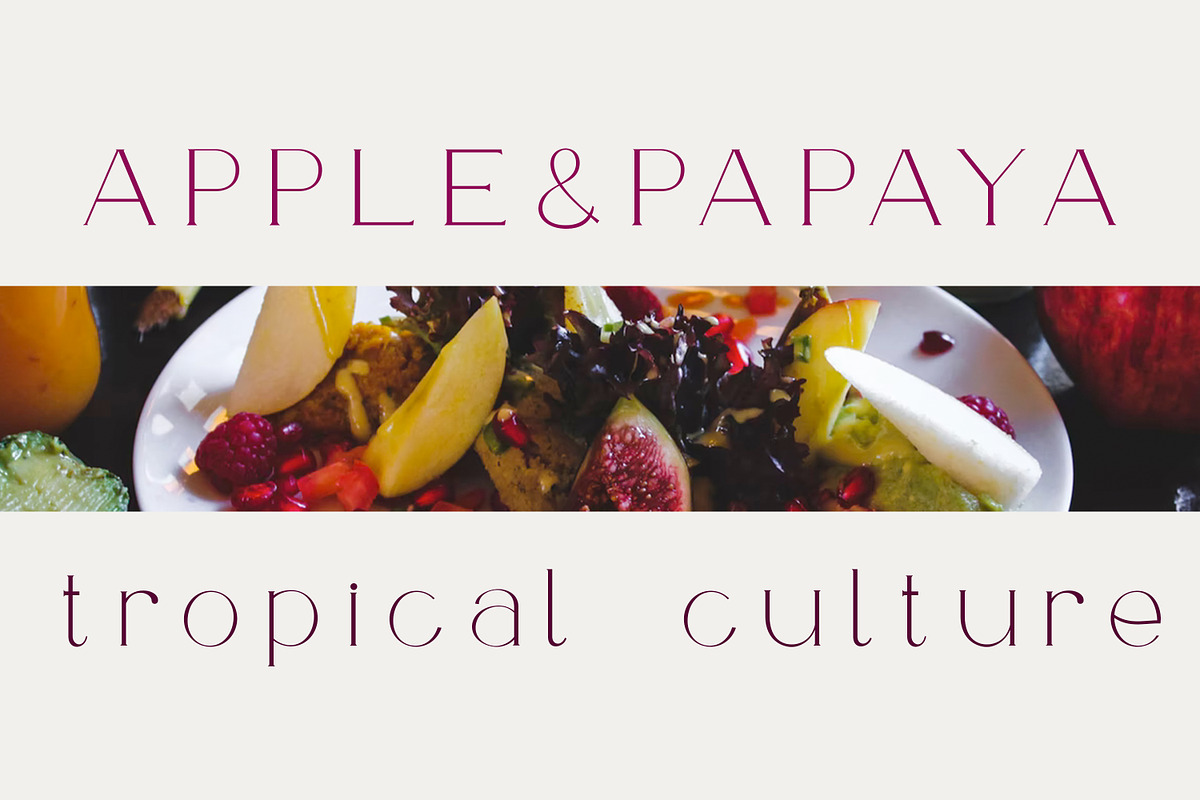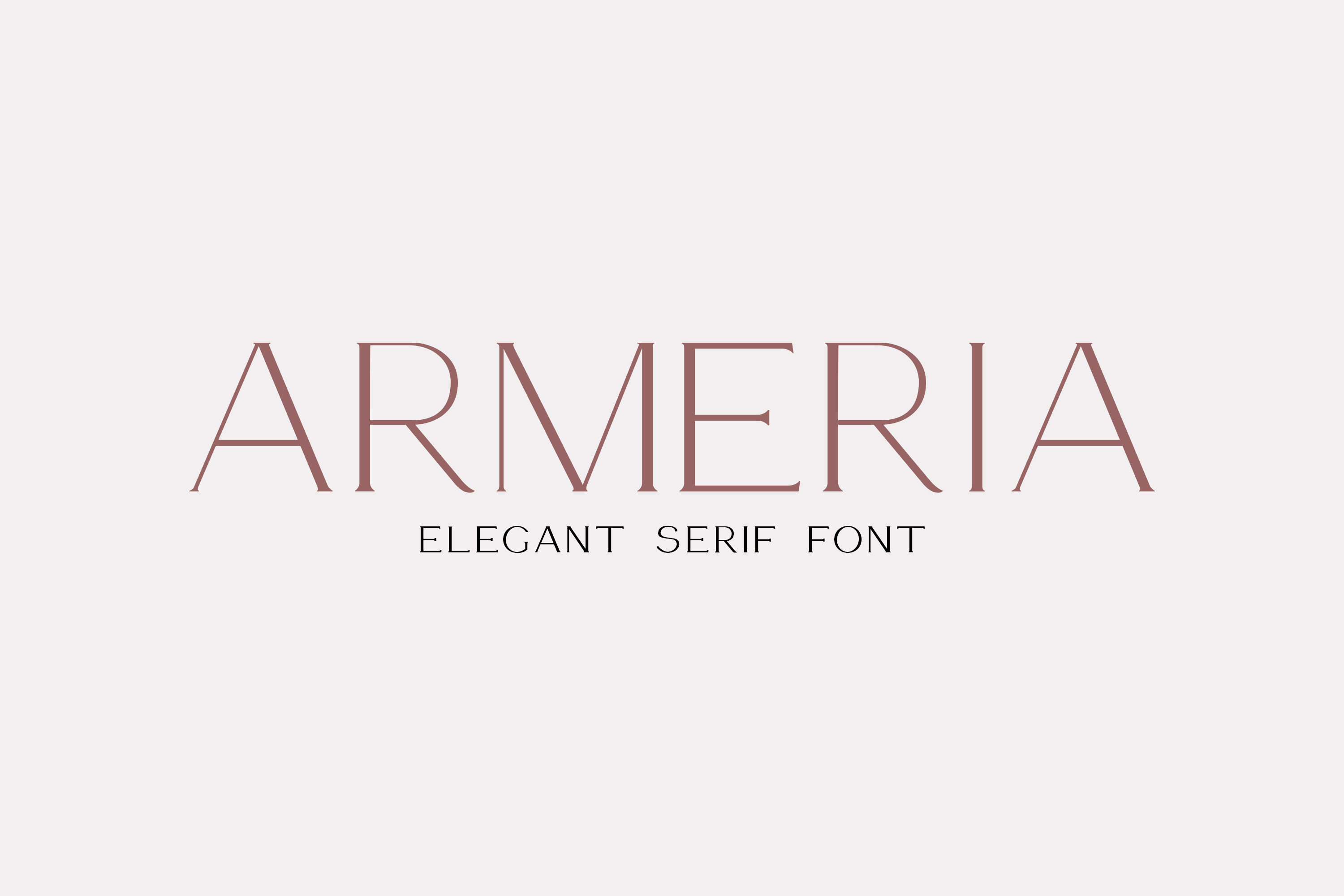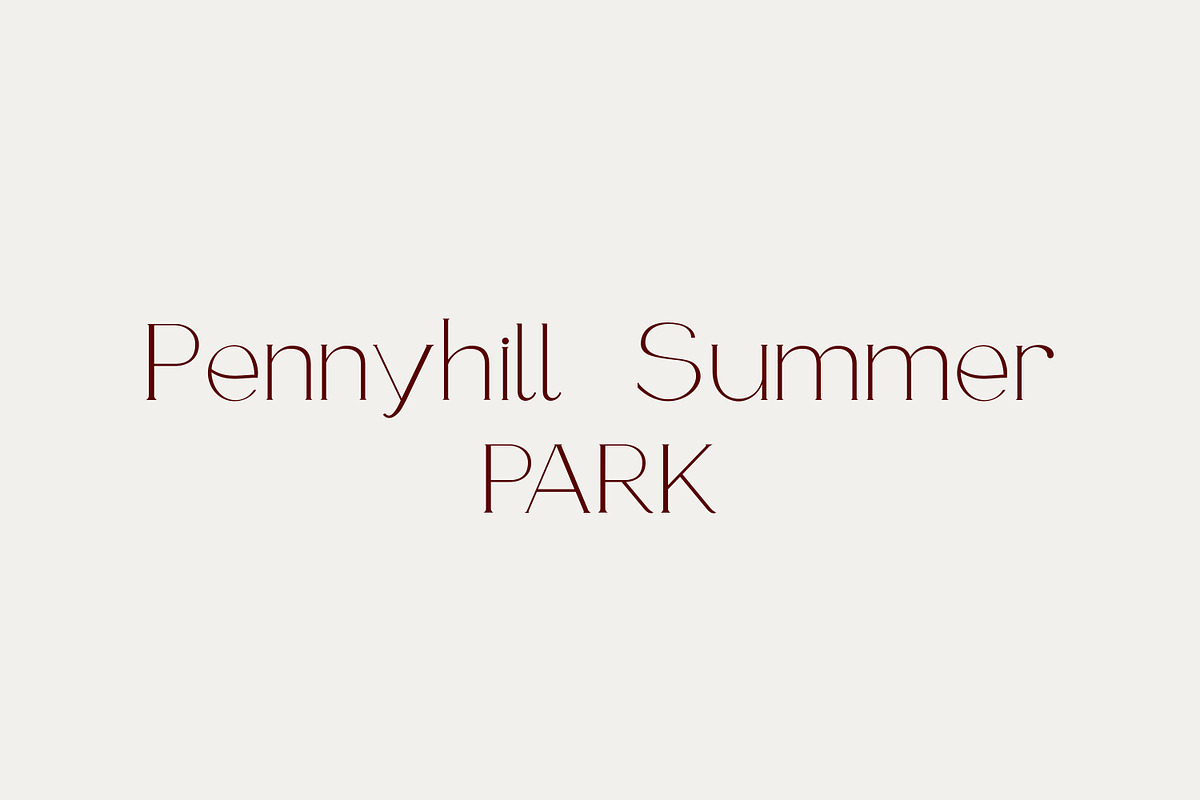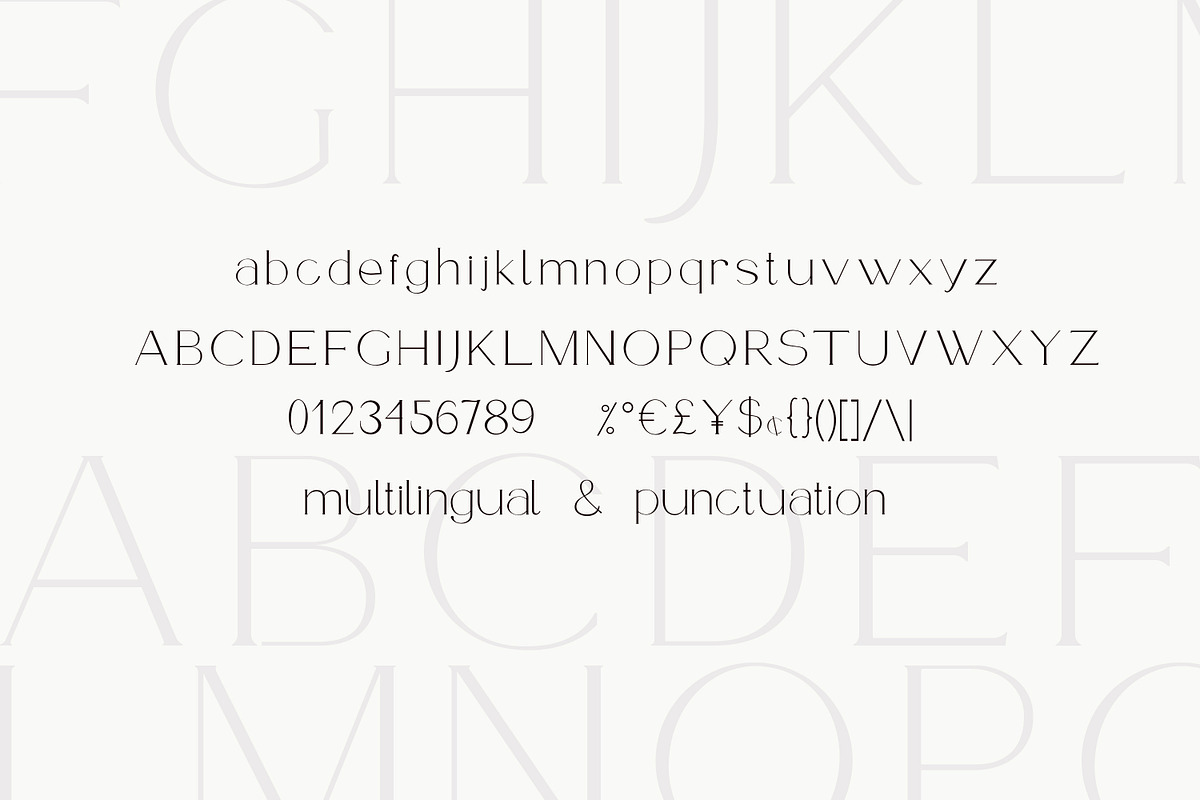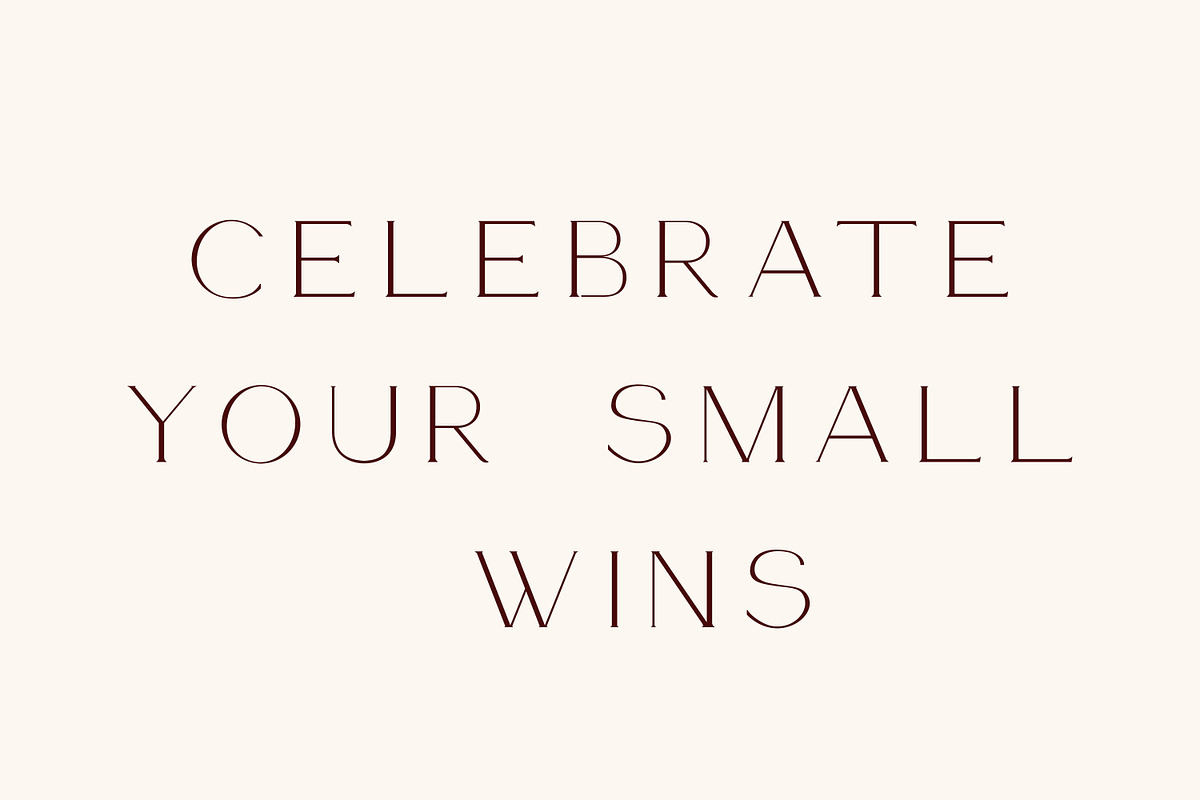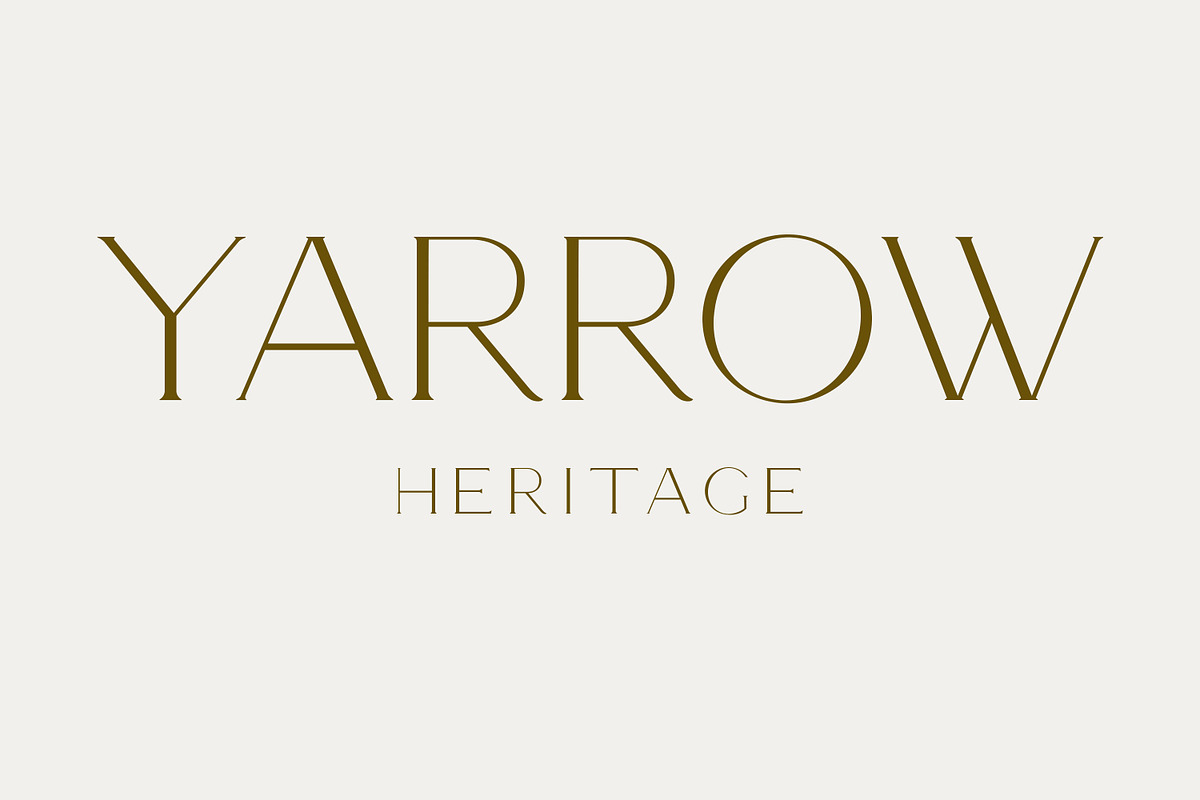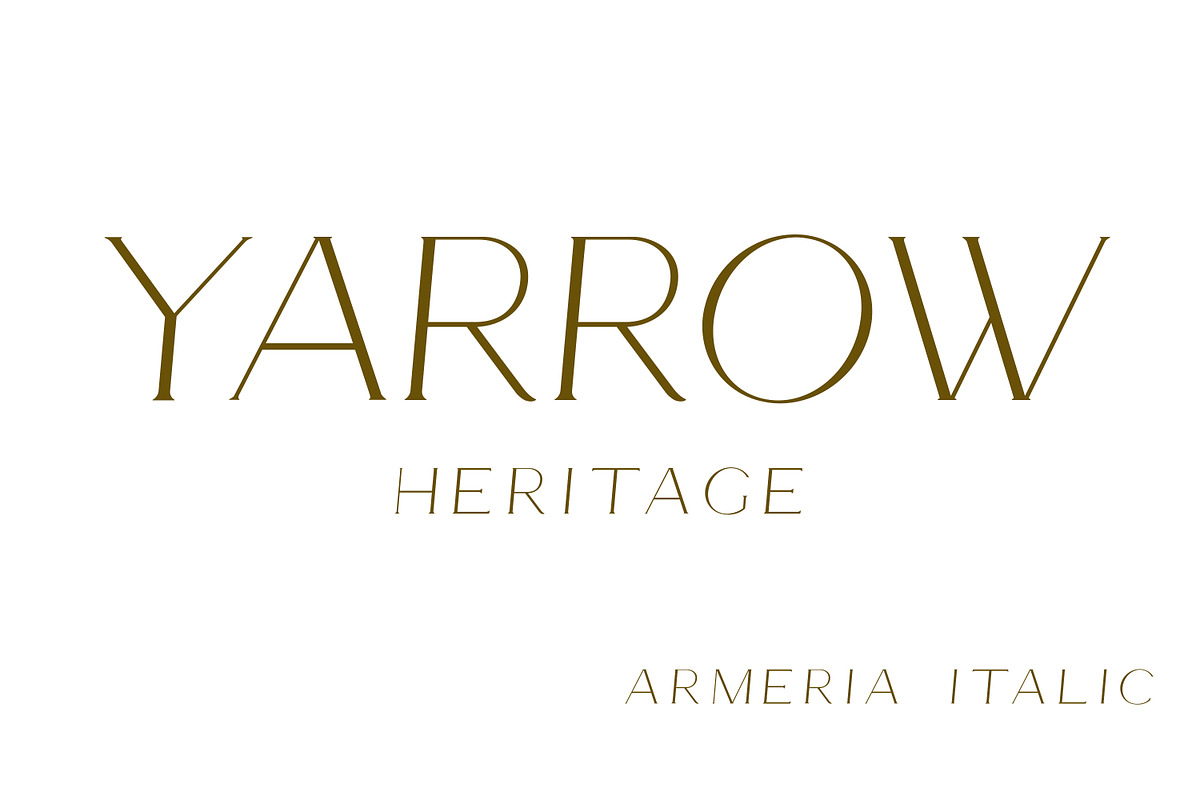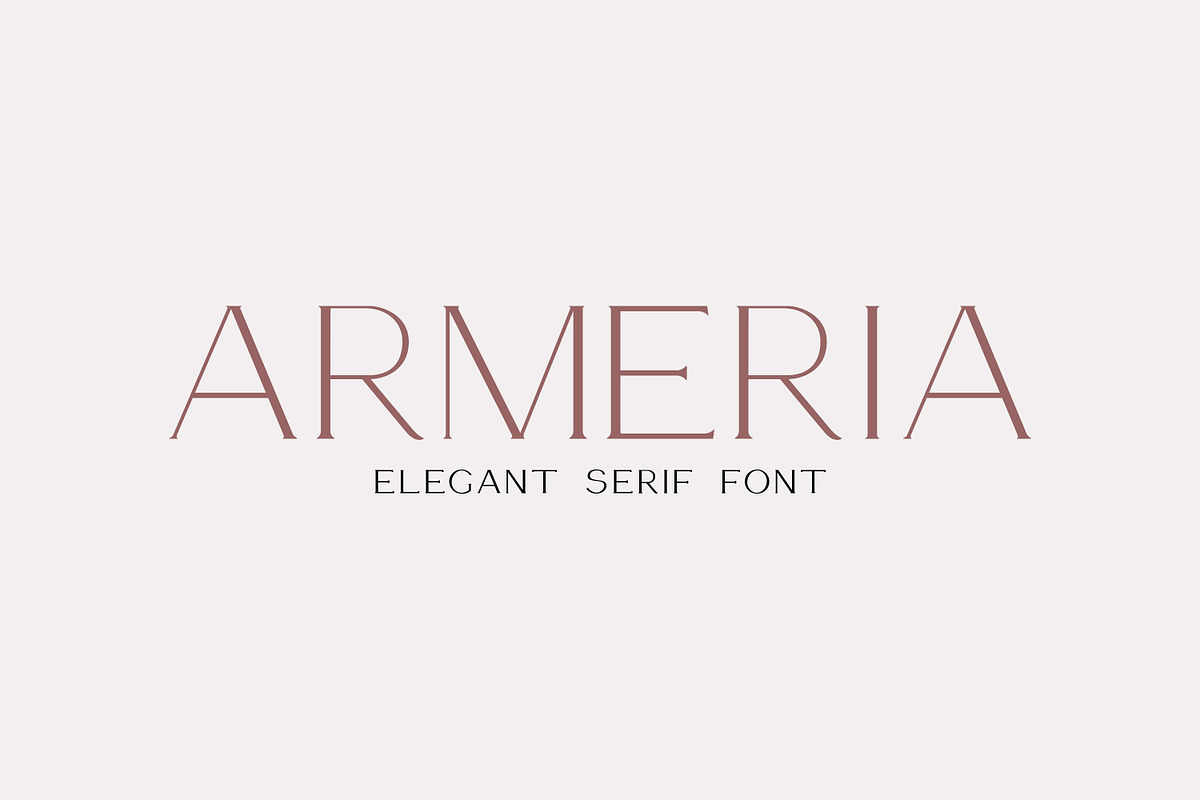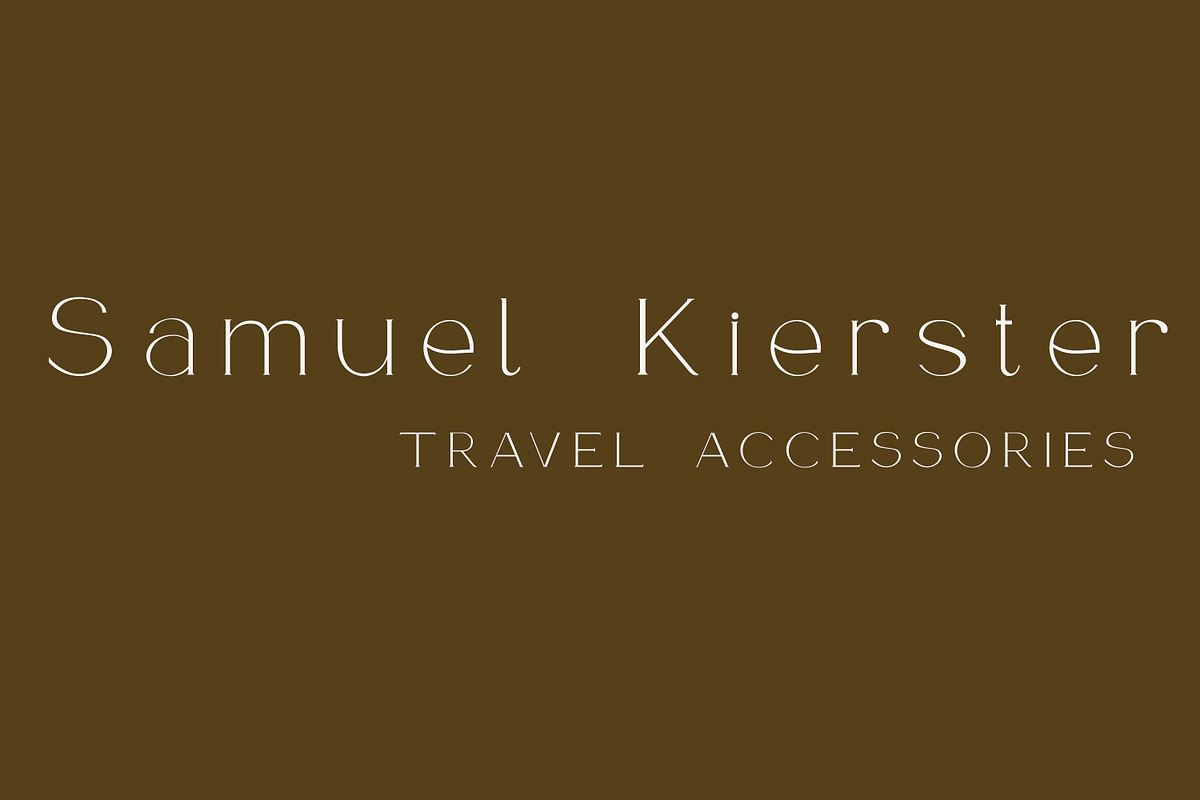
Armeria - serif font
Armeria is a modern serif font with modern look and elegant minimalistic style.
Armeria aims to be a universal, it works great in headlines, high-end branding, logo designs, magazines, product packaging & invitations. It comes in 1 style - regular and is equipped with an advanced character set, supporting Central European languages.